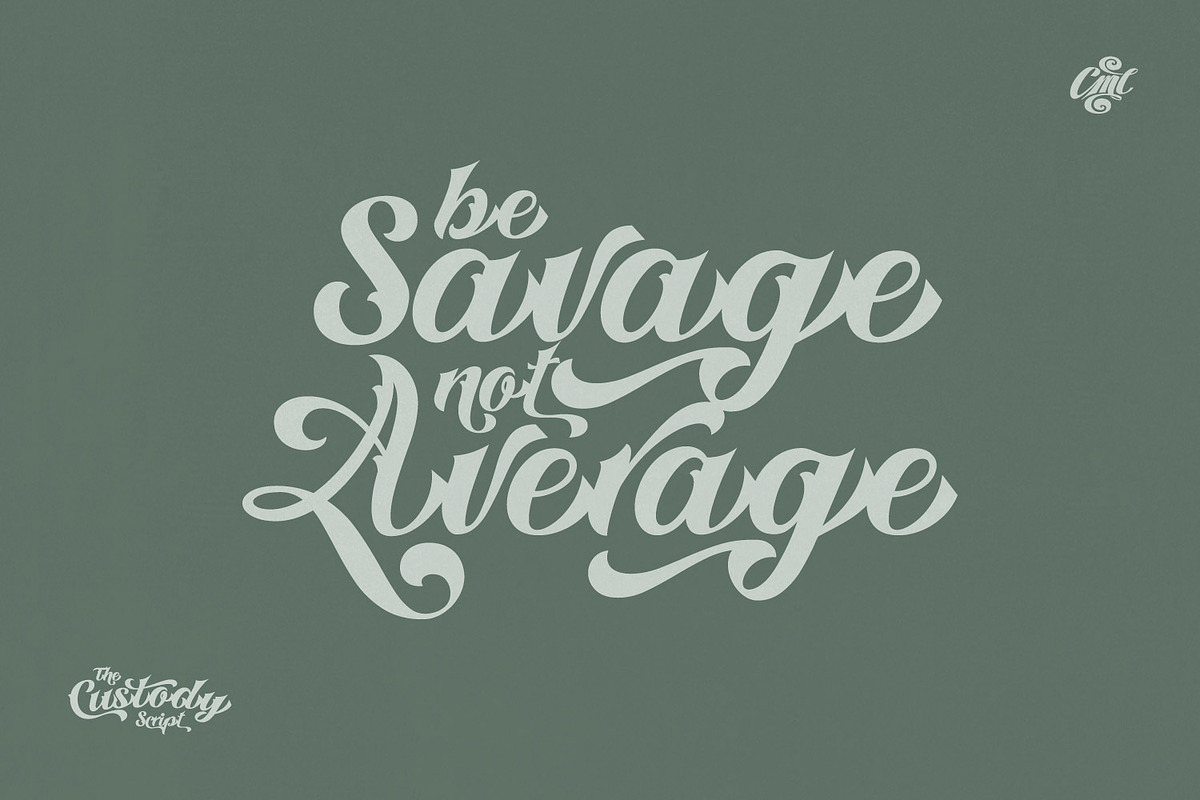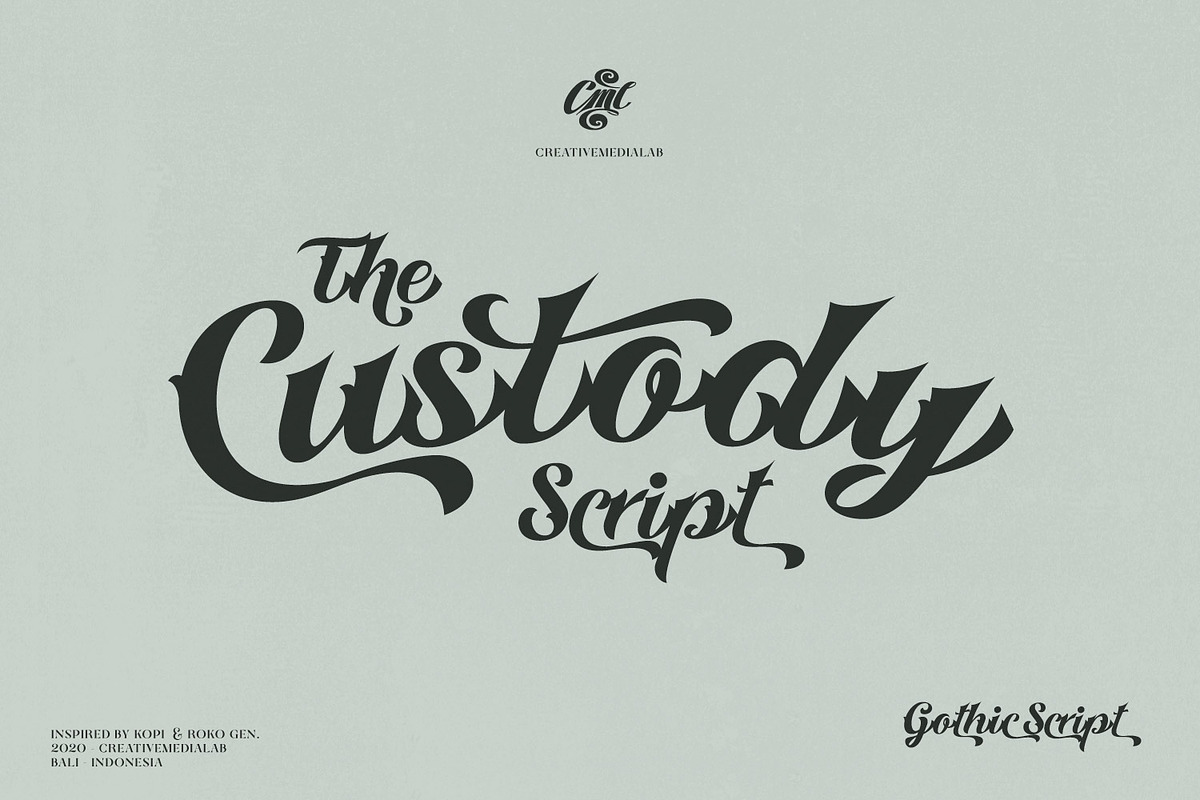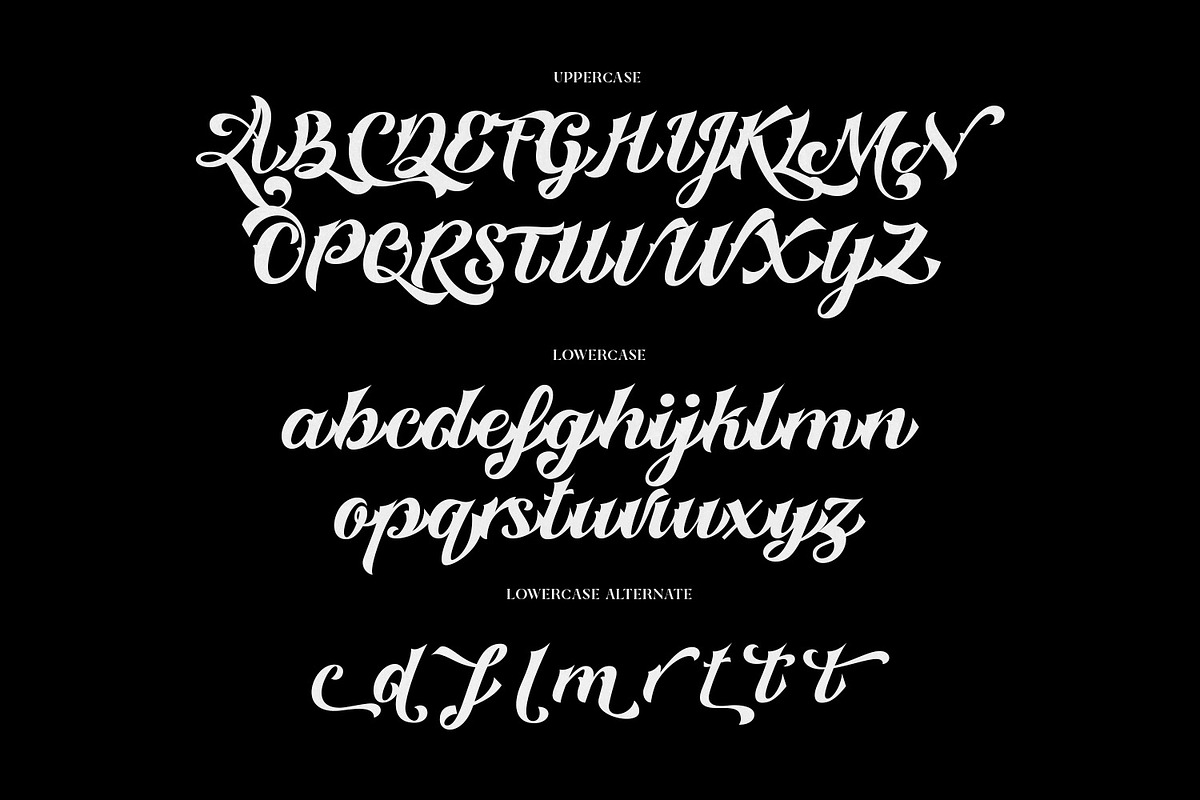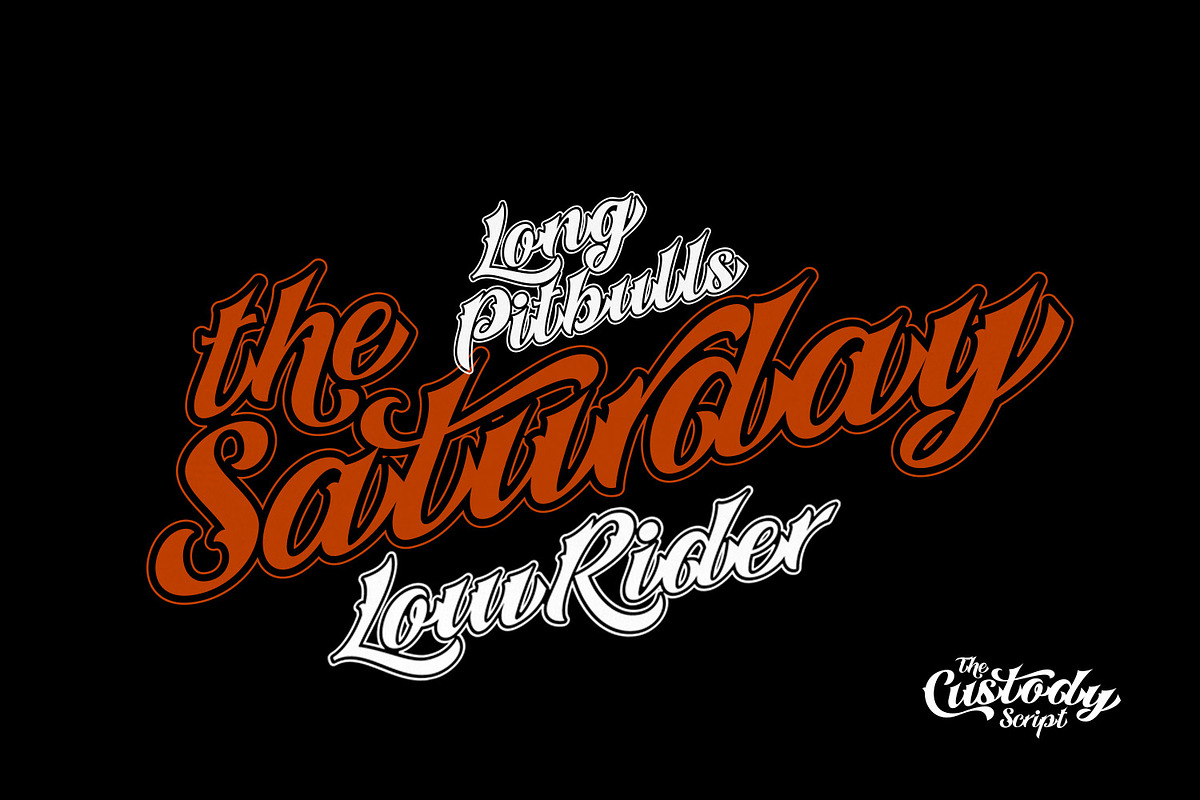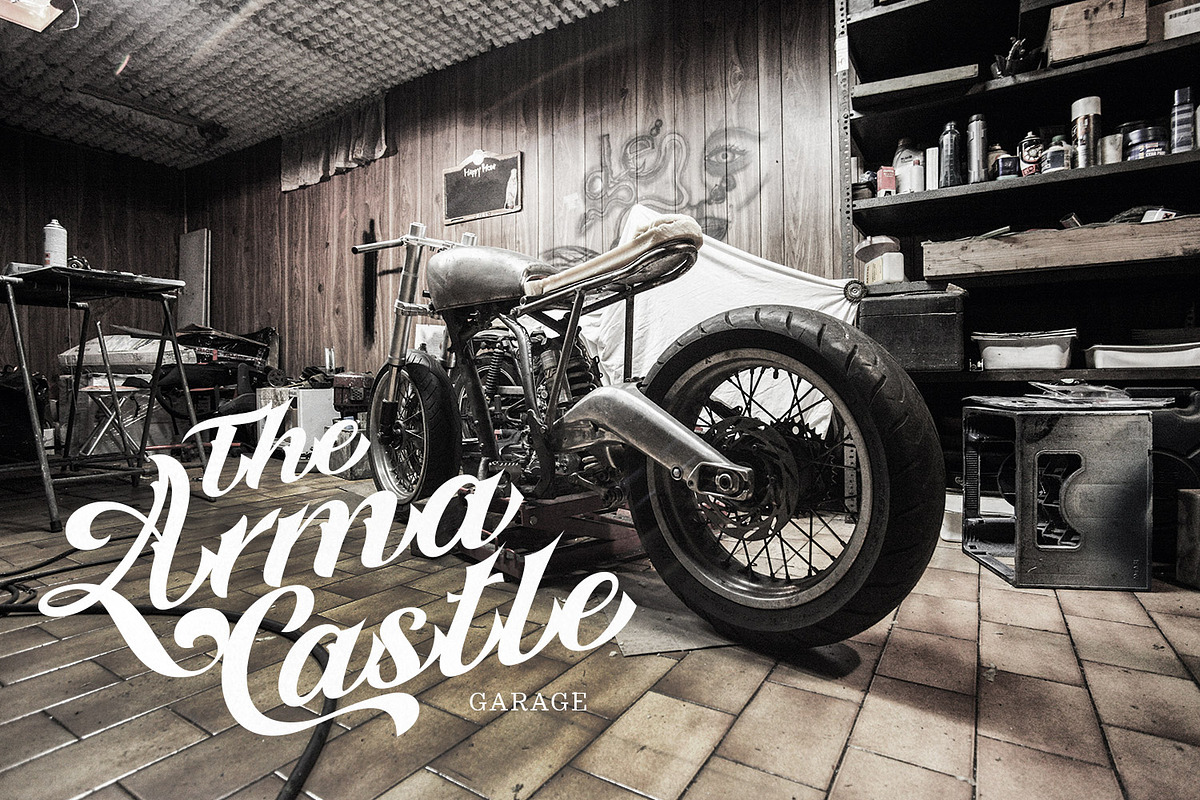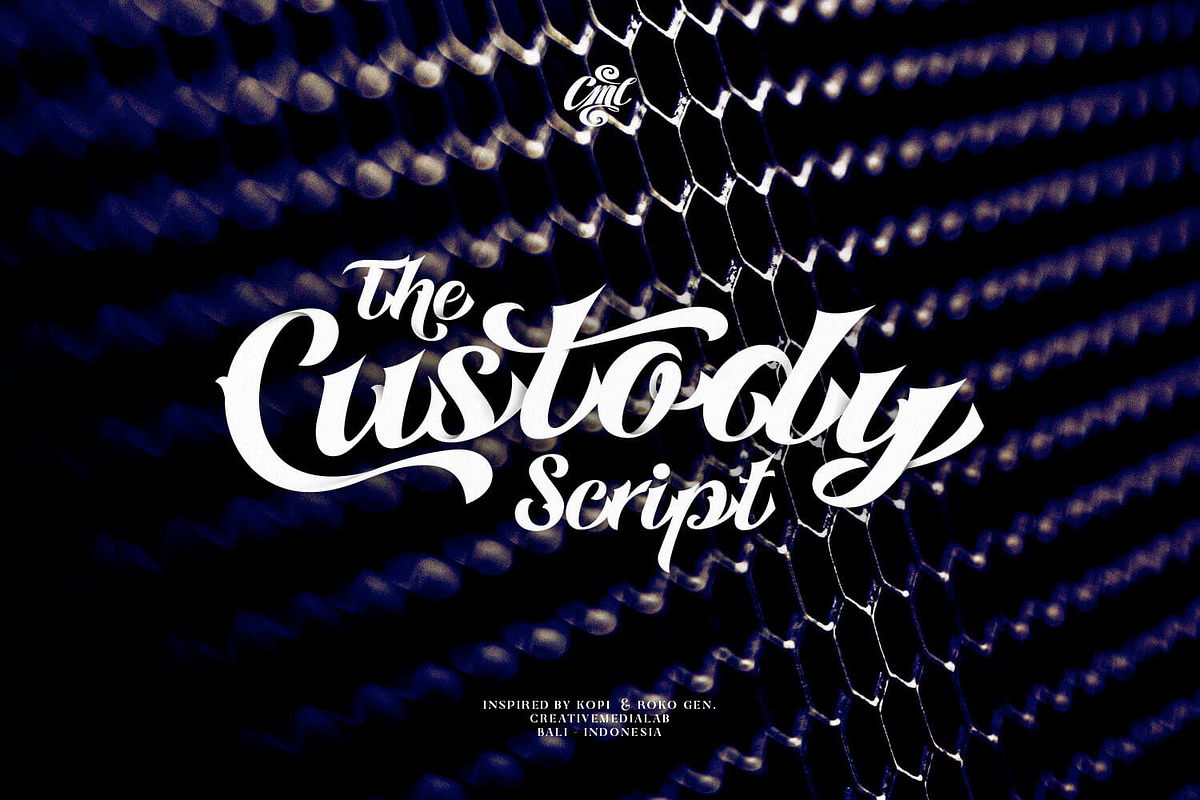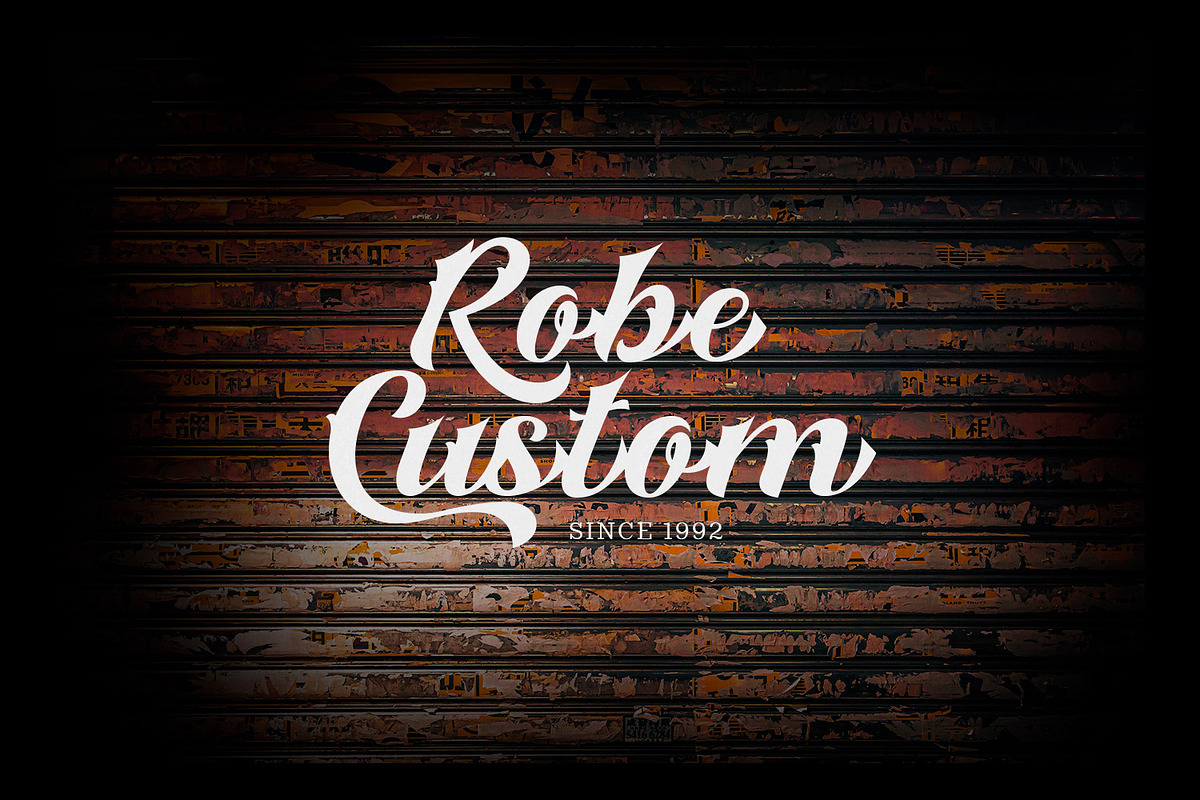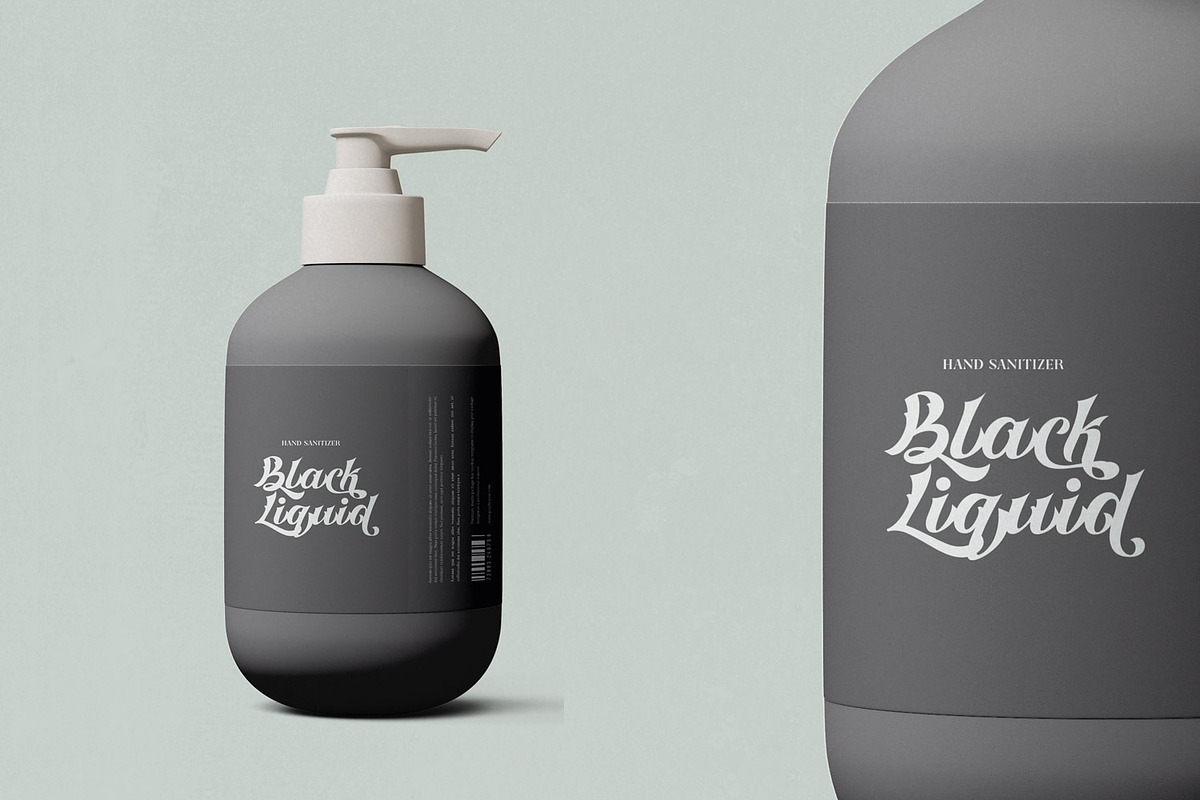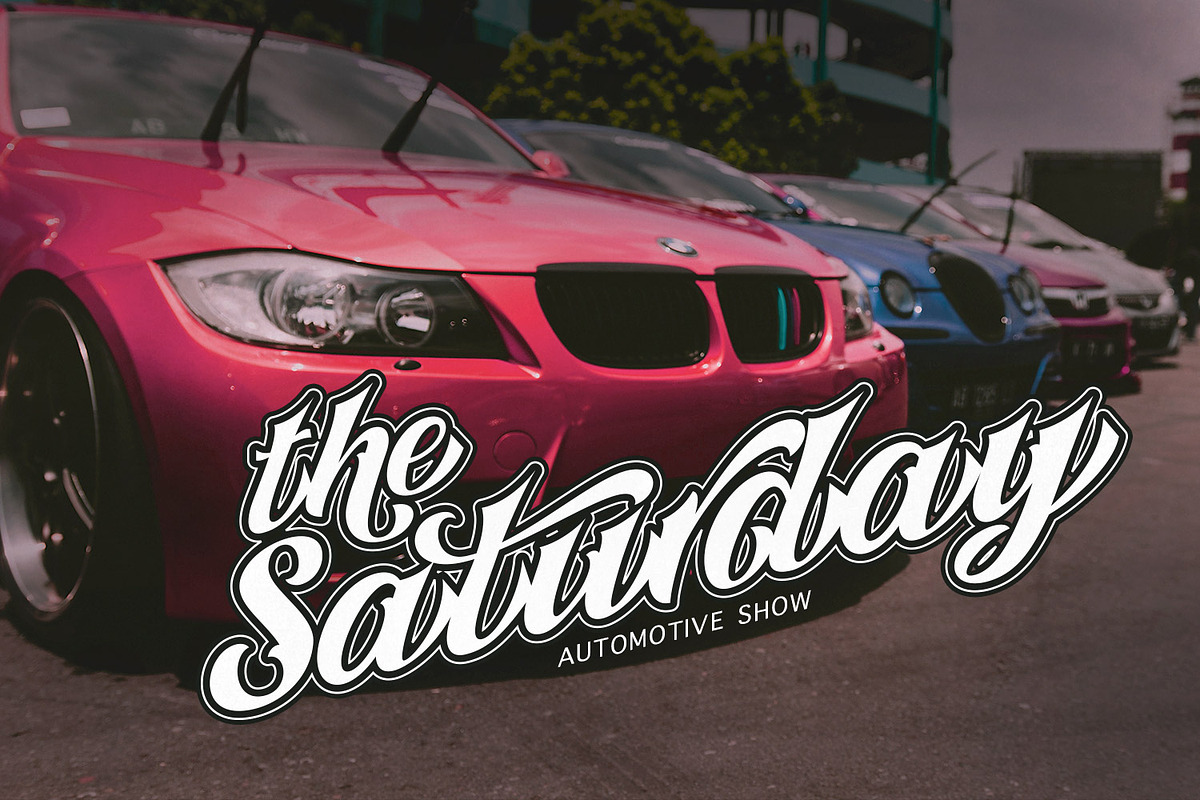
Custody Script
Custody Gothic Script
Modern Gothic script perfect for logo, sticker, brand, music, label, packaging, tattoo, Halloween, clothing and any stylish modern design theme.